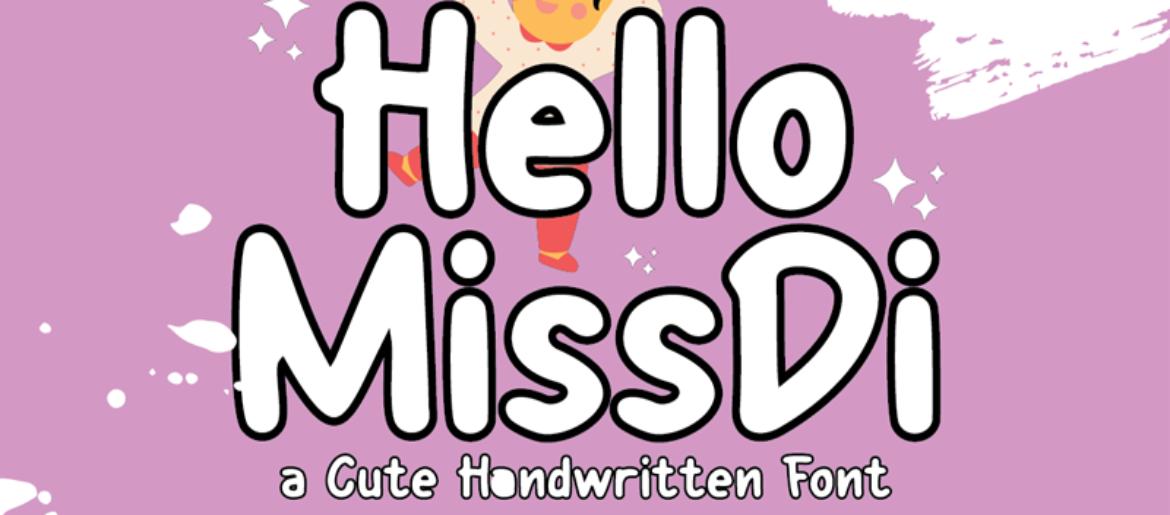
Hello MissDi
Hello MissDi font
Hello MissDi Font is a playful cartoon style typeface with a cheerful, friendly personality. Its smooth strokes and cute, casual style make it perfect for invitations, quotes, logos, planners, and social media designs. Hello MissDi adds warmth, charm, and a fun handwritten touch to any creative project.
➤ Font Name: Hello MissDi
➤ Designer: Studio Hello Good
➤ Style: Cartoon
Hello MissDi font